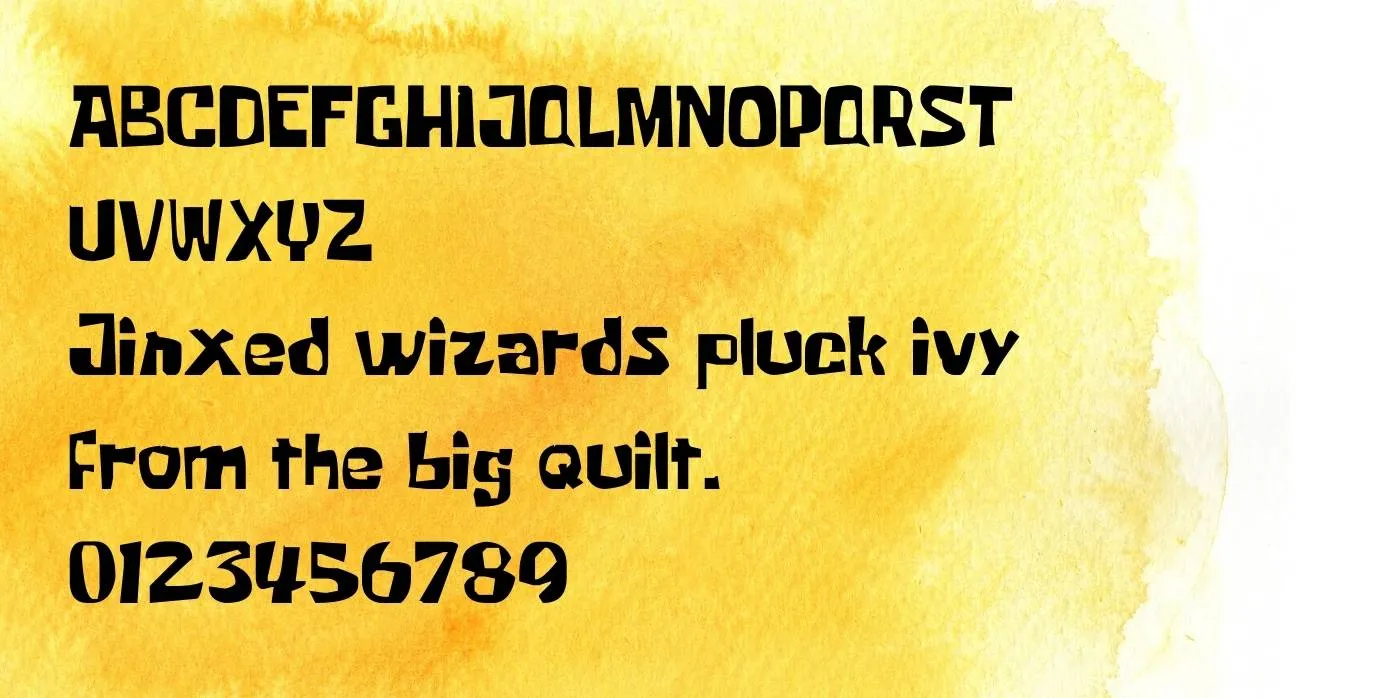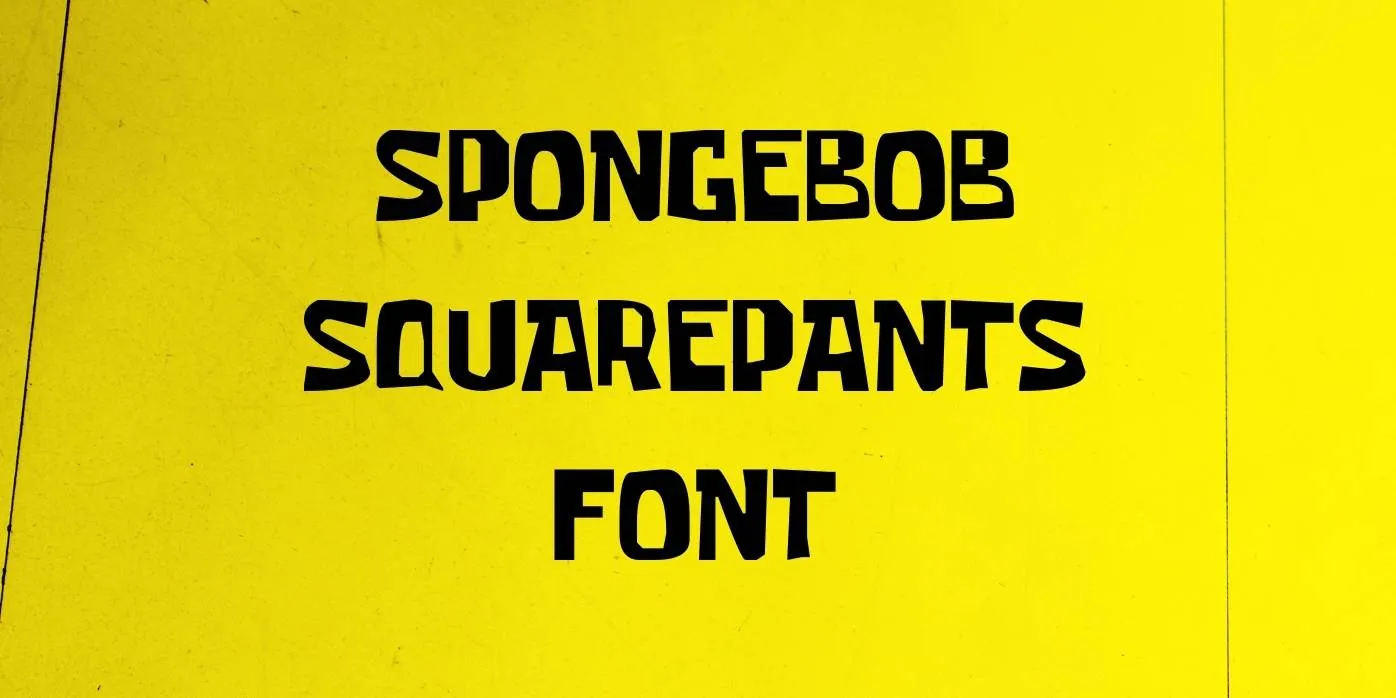
Spongebob Squarepants Font
Spongebob Squarepants Font is a famous TV series typeface that is derived from a TV cartoon known as Spongebob Squarepants.¬† The designer of this typeface is Seil. The font’s real name is Krabby Patty font. The font is free for personal use and has TTF features. This is a famous Tv cartoon series that is on aired in 1999.
It has 13 seasons and gained much popularity. This cartoon series might be the favorite of every kid in this era. This font does not scale very pleasingly, because its glyphs have been made with the help of auto-tracing and low-resolution font textures. This TrueType Outlines font has very beautiful cartoon characters consisting of Uppercase and Lowercase letters, Numbers and Numerals, general punctuation, special glyphs, and special symbols also.